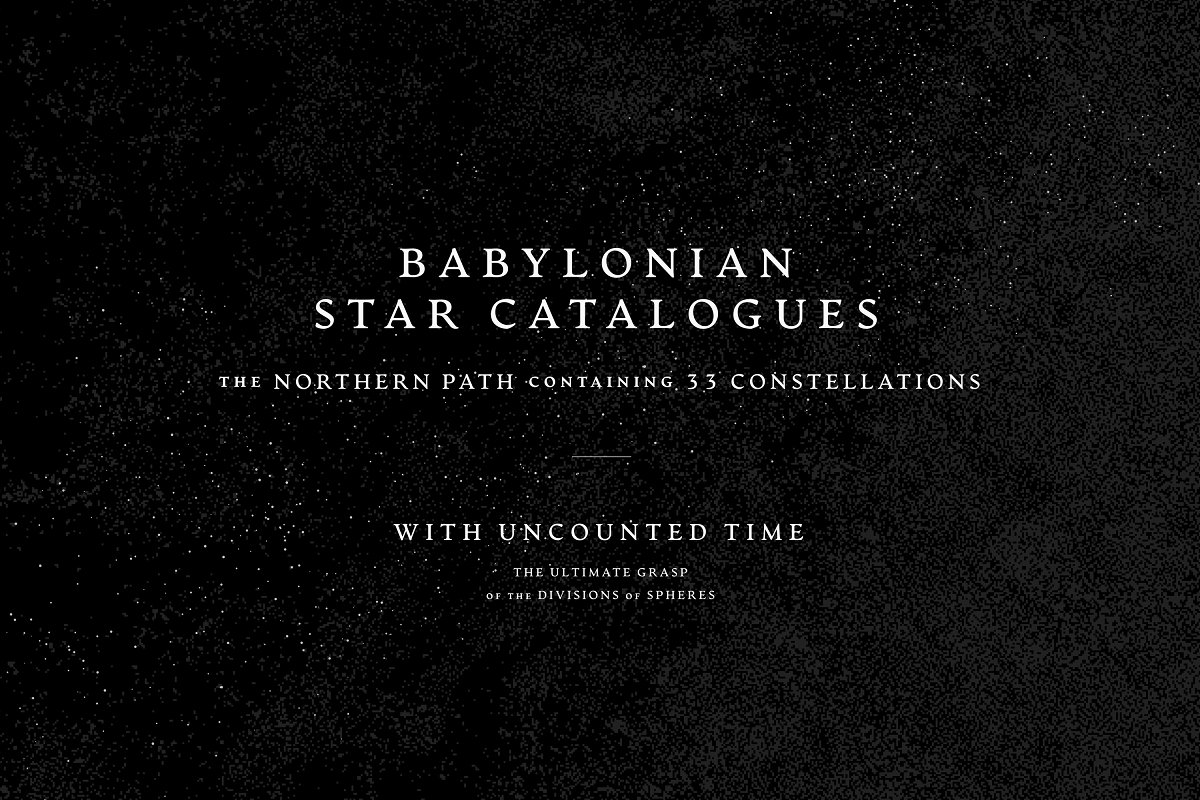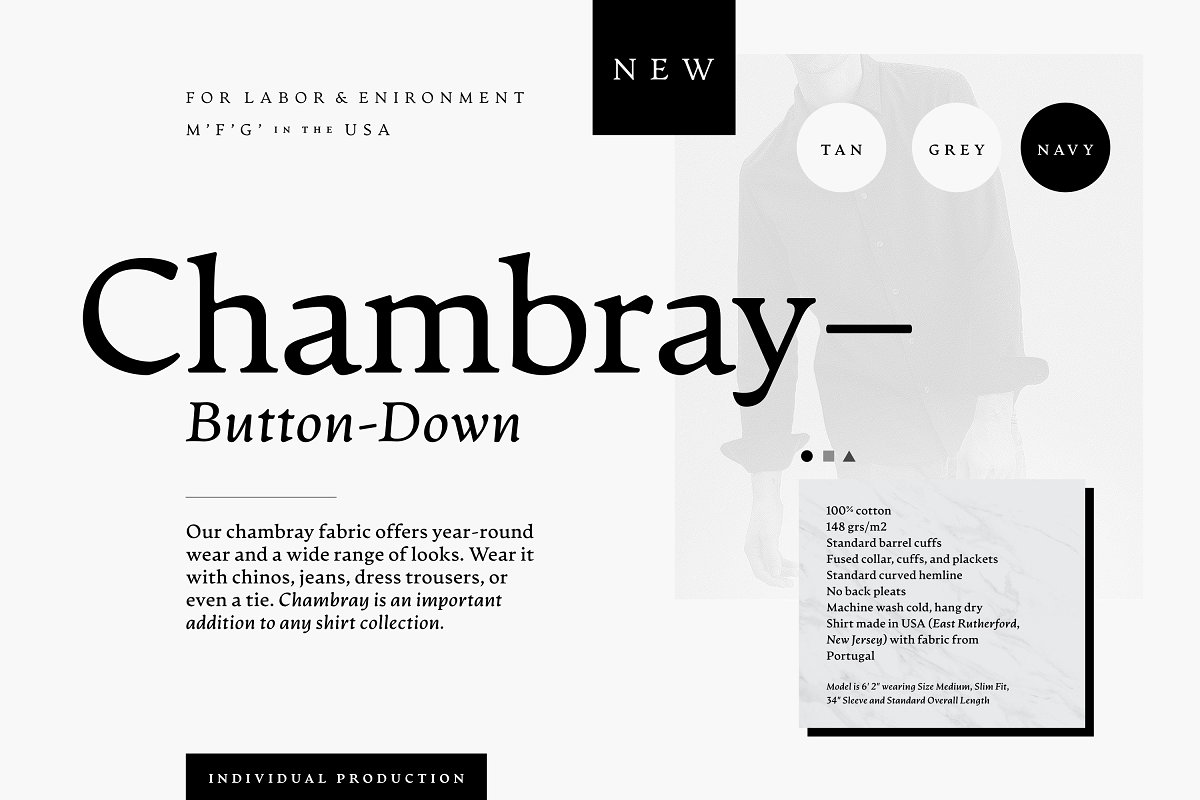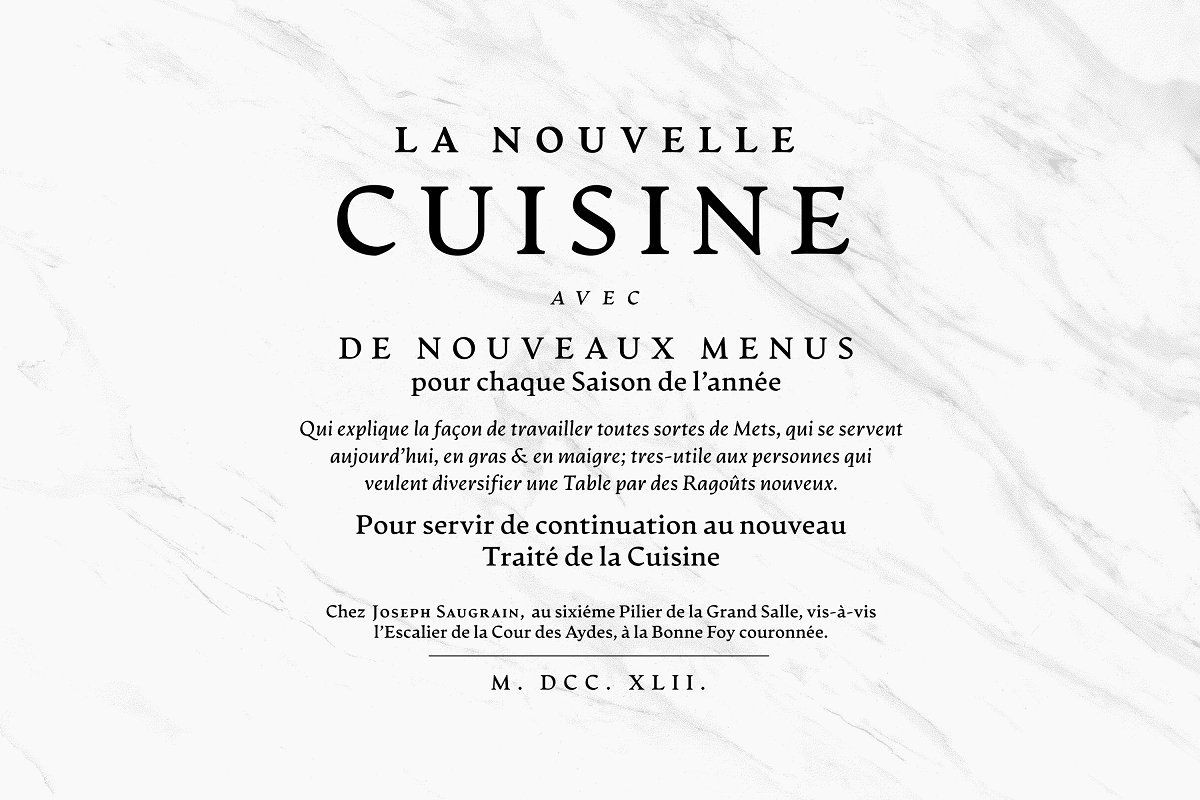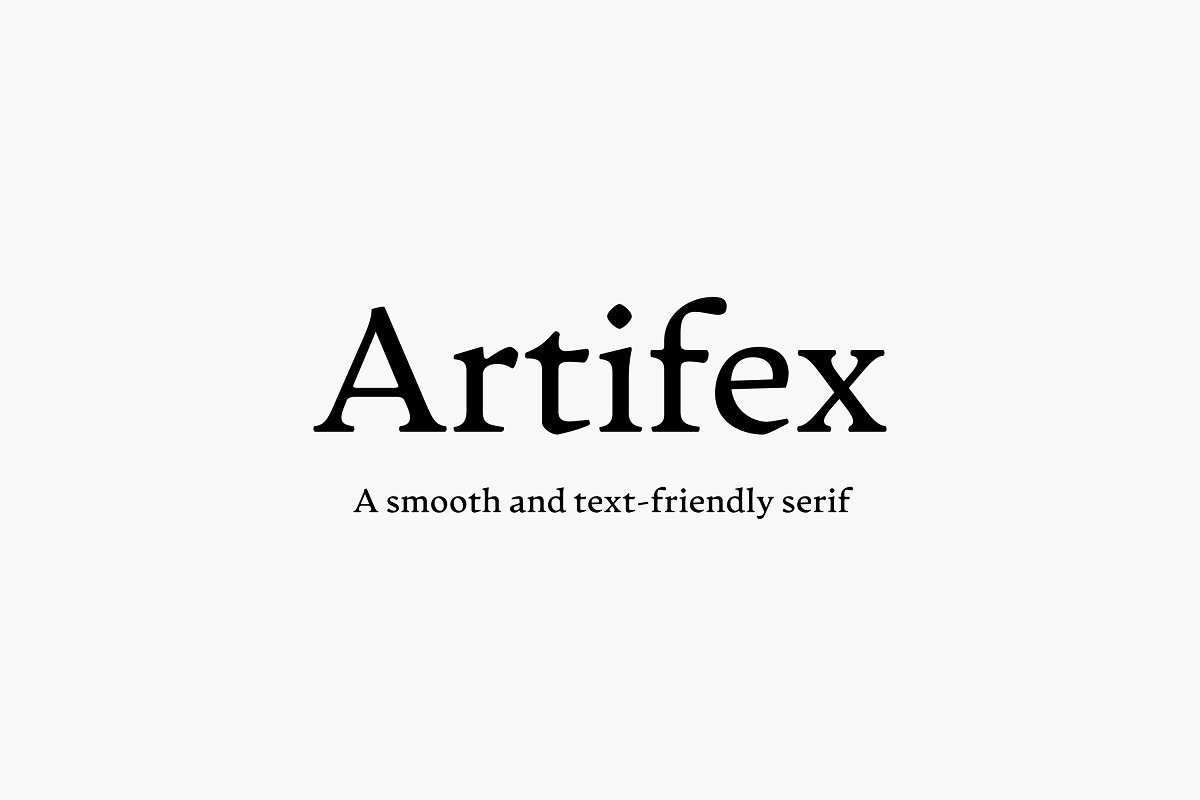
Artifex CF text-friendly serif font
Artifex CF is a text-friendly serif, designed to be easy on the eyes and melt into the page (or screen). Gentle, subtle serifs aid the flow of reading without being ornate or stiff, while a near-upright italic design adds emphasis without distraction. Though created for text, Artifex can double as a handsome display typeface, with a medium-contrast design and details that scale gracefully.